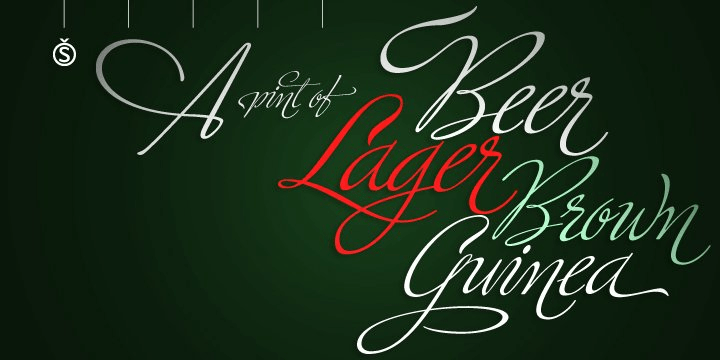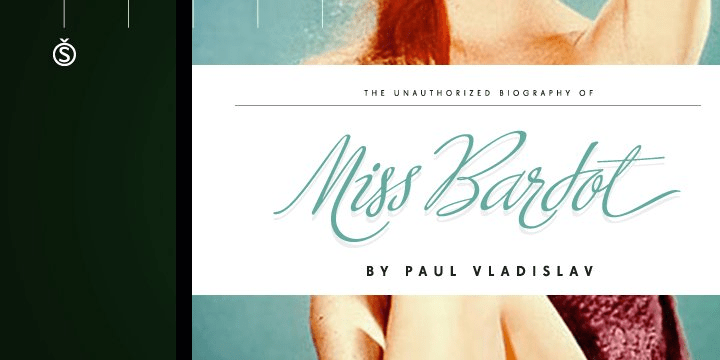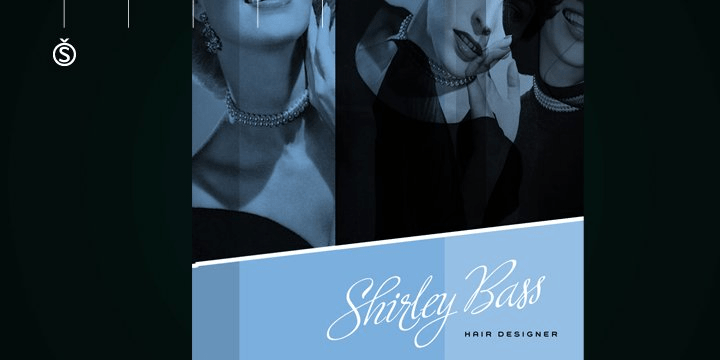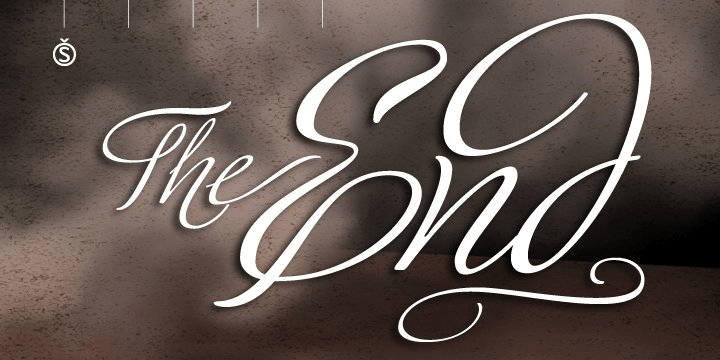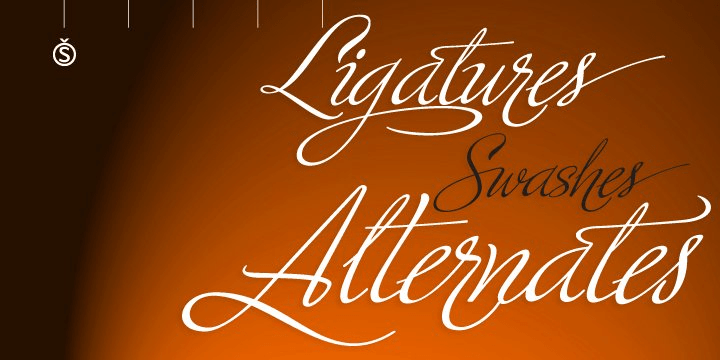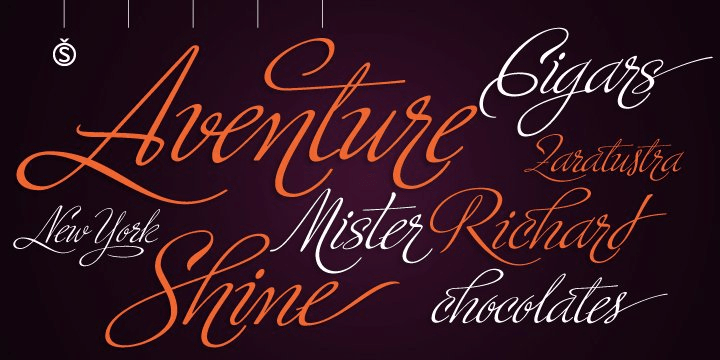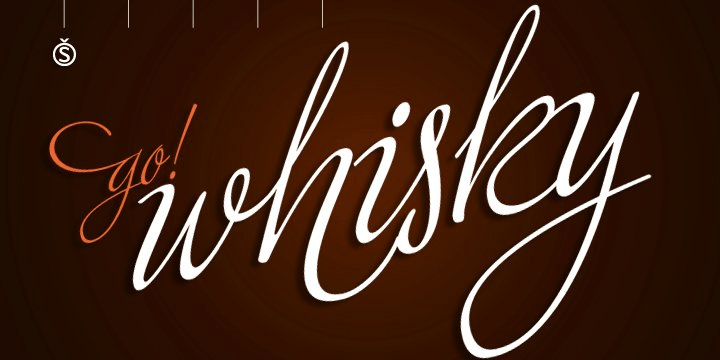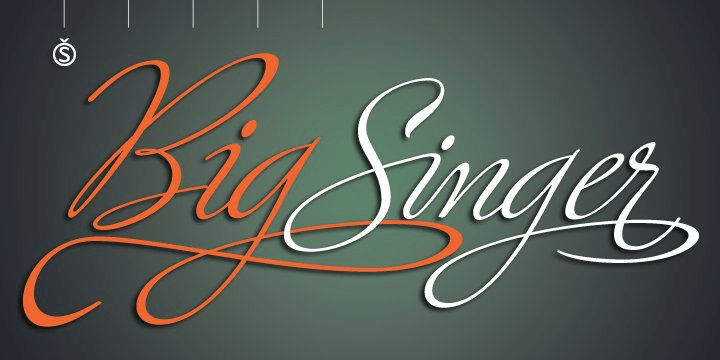
Ministry Script
Buy NowMinistry Script was designed to be ?A time capsule that marks both the American ad art of the 1920s, and the current new-millennium acrobatics of digital type.?
Ministry's OpenType features include contextual and stylistic alternates, swash characters, and a galaxy of ligatures. A single face with over 1,000 characters to explore. The OpenType palette provides access to four different variants of each letter.